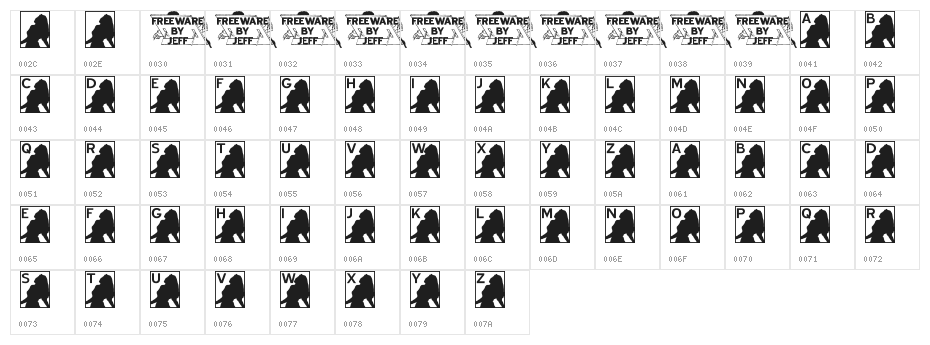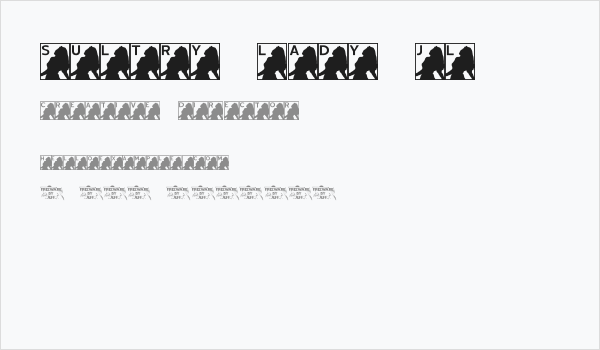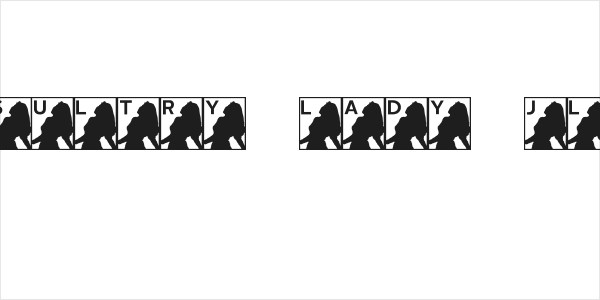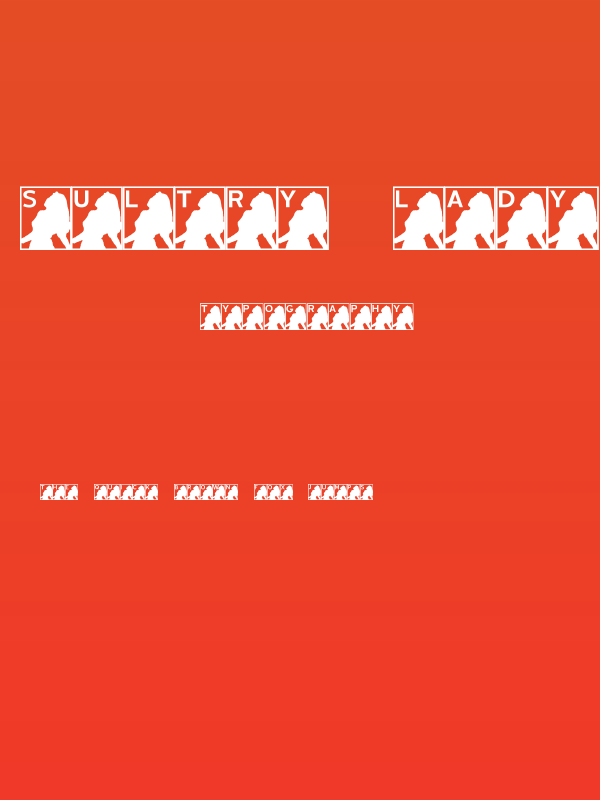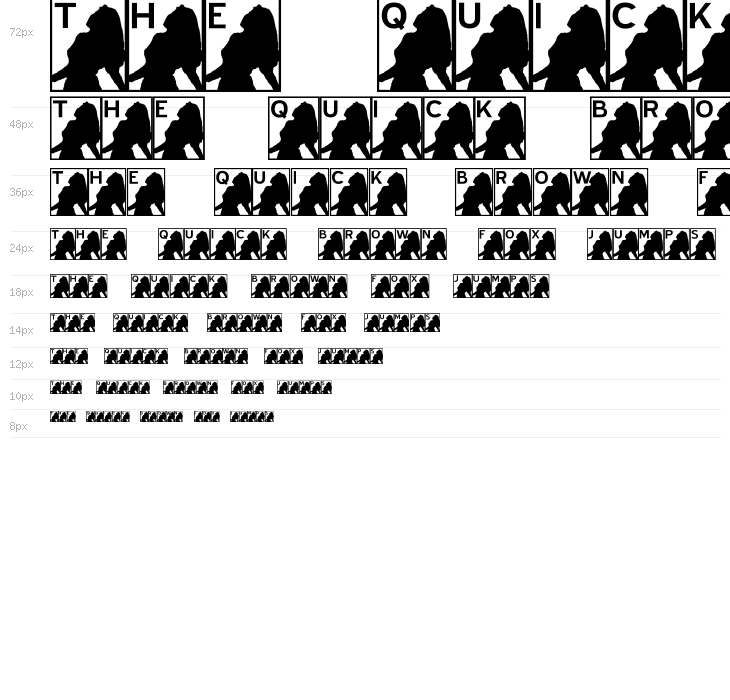
Sultry Lady JL Font
Sultry Lady JL Description
This font features a unique and playful design where each letter is accompanied by a silhouette of a woman, creating a bold and eye-catching visual. The letters are uppercase and maintain a consistent style, with the silhouette adding a decorative element that makes the font stand out. The overall design is striking and unconventional, making it suitable for projects that require a touch of whimsy or a statement piece. The font does not include lowercase letters or numbers, focusing solely on the uppercase alphabet and a few special characters.
| Proposed Projects | Ideal for posters, event flyers, or branding that seeks to capture attention with a bold and playful aesthetic. |